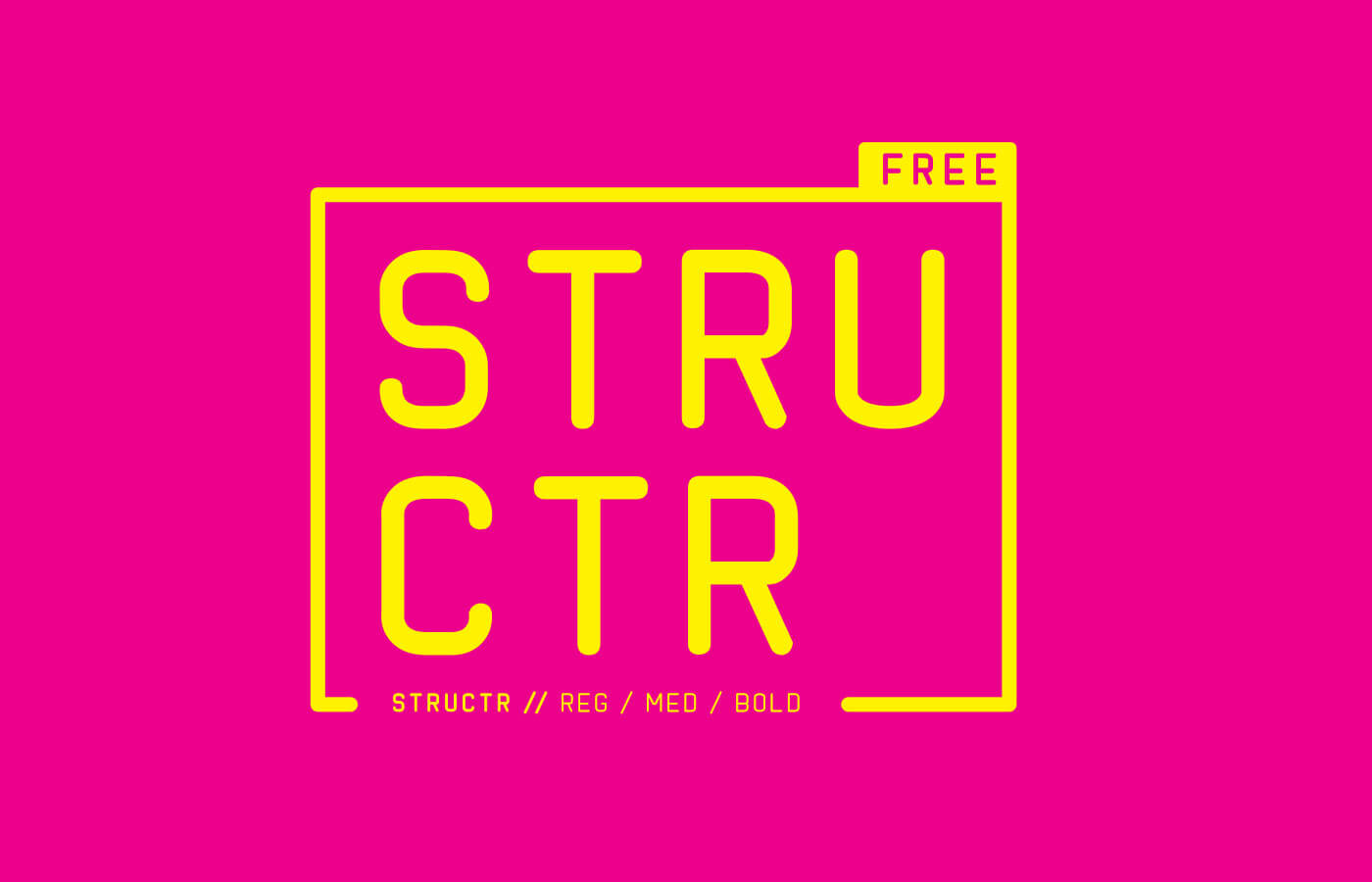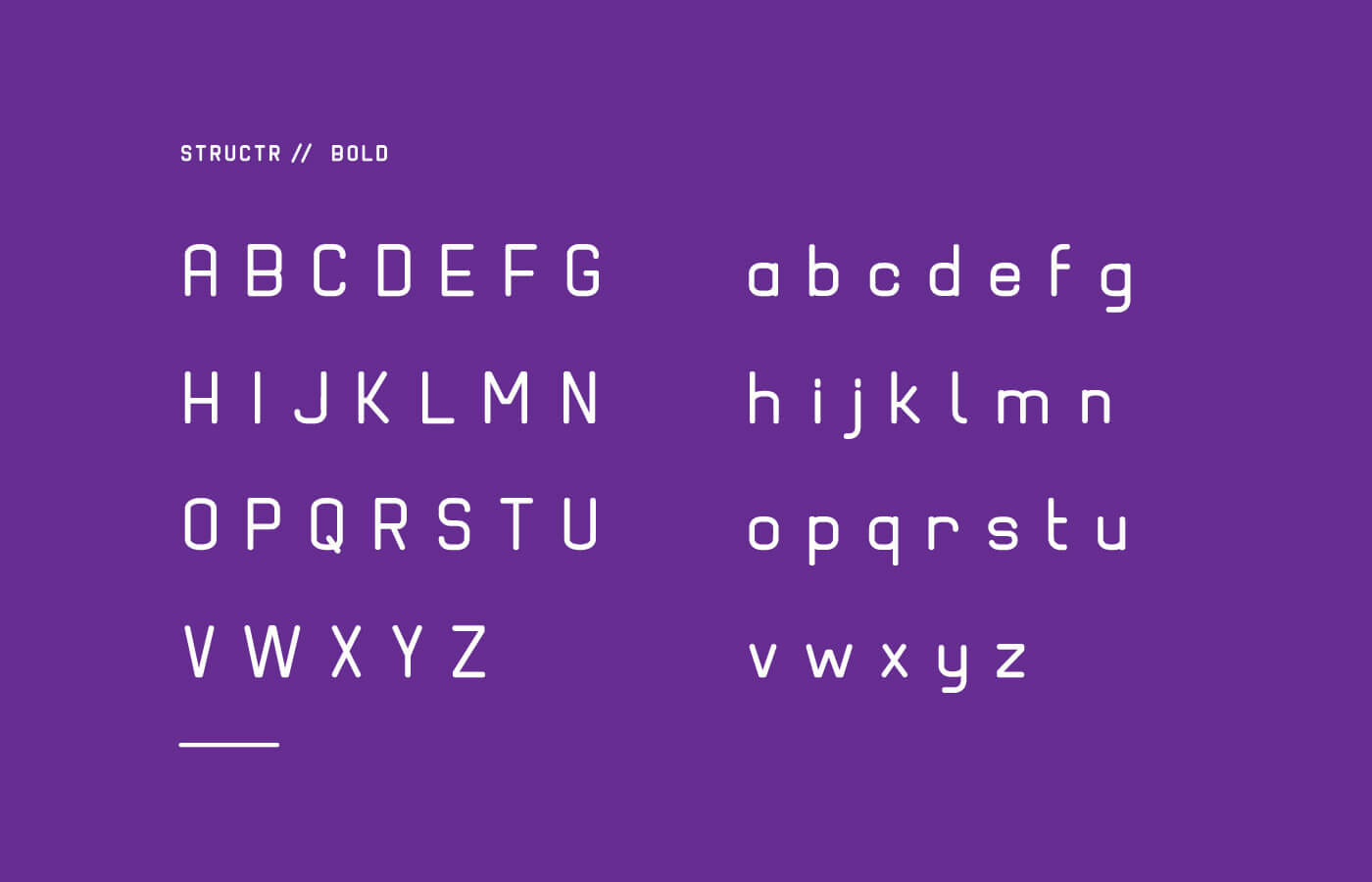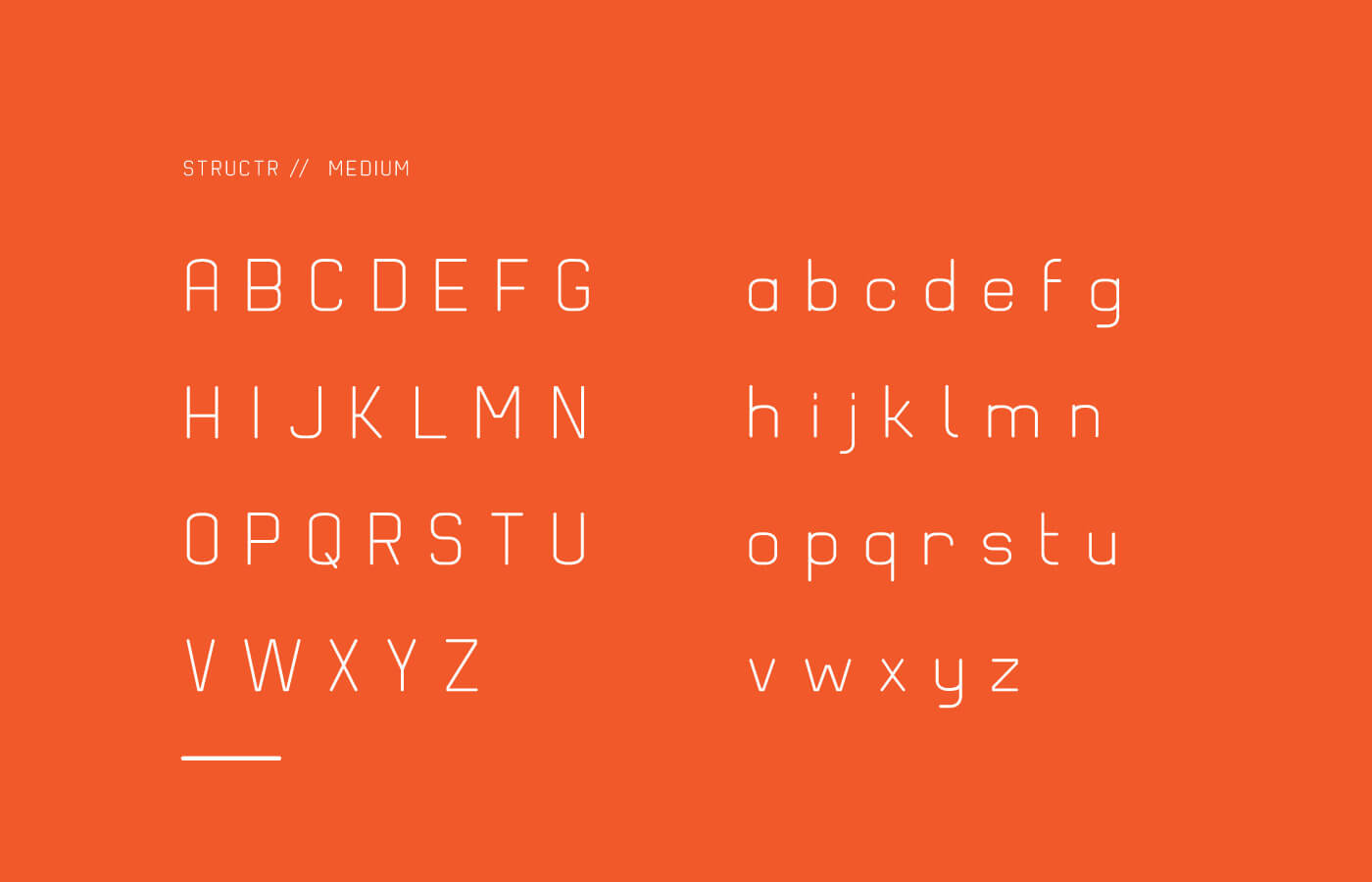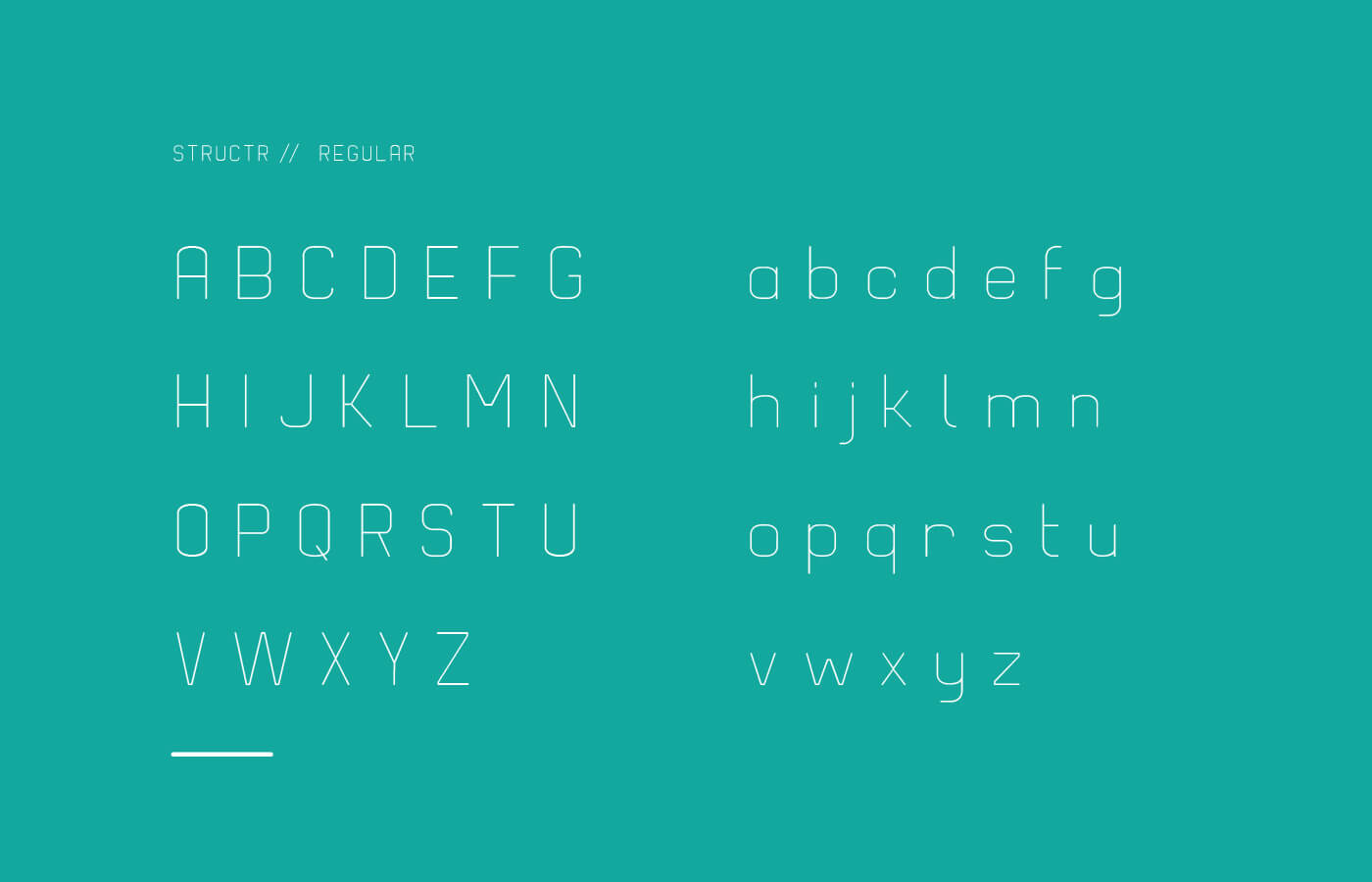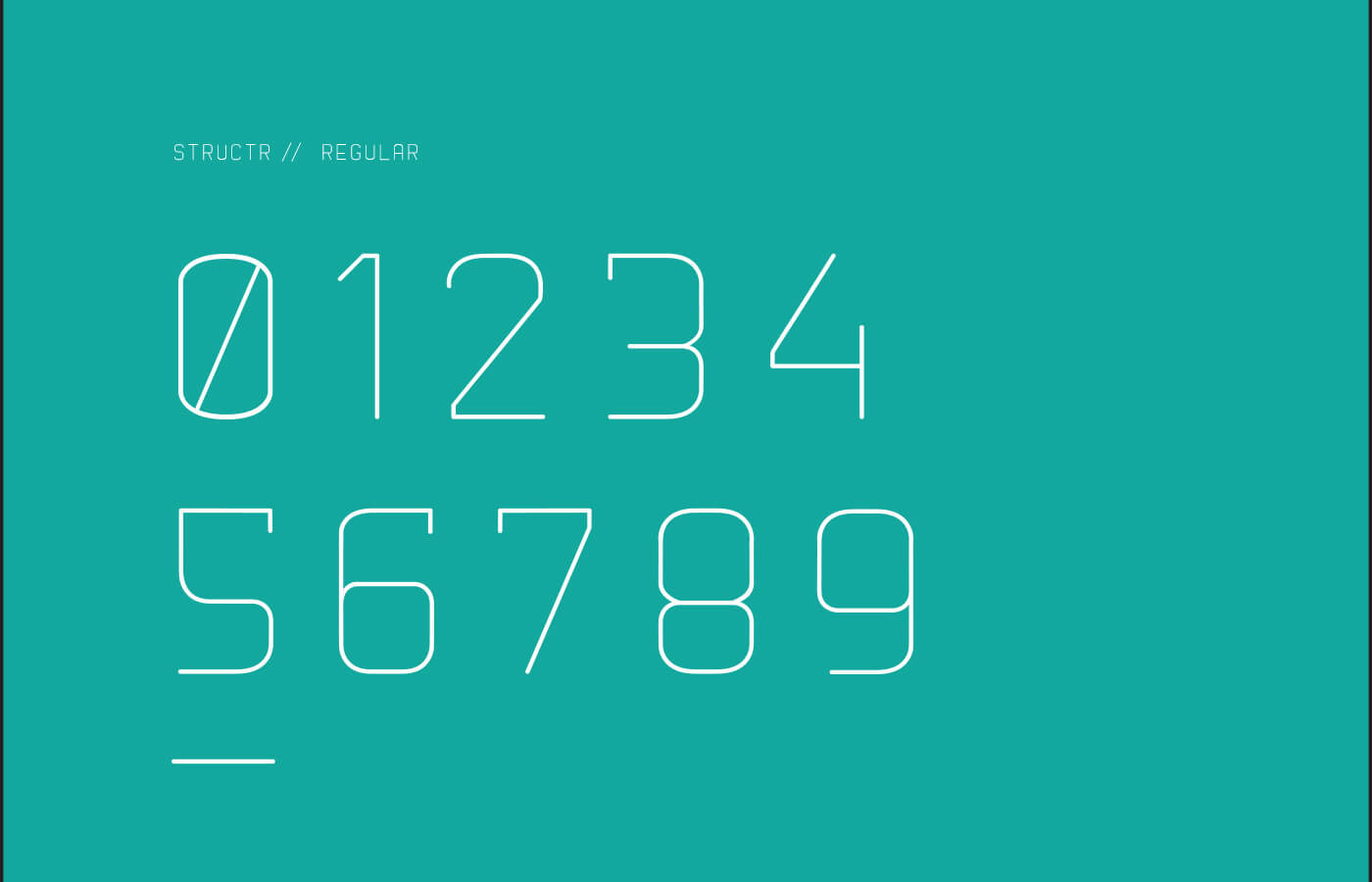
Structr free font
Structr free font it’s sans serif. Elegant with round corners comes with 3 weights available. Simple and clean seems suitable for different graphic proposes, the numbers also look great. Another must have for sure.